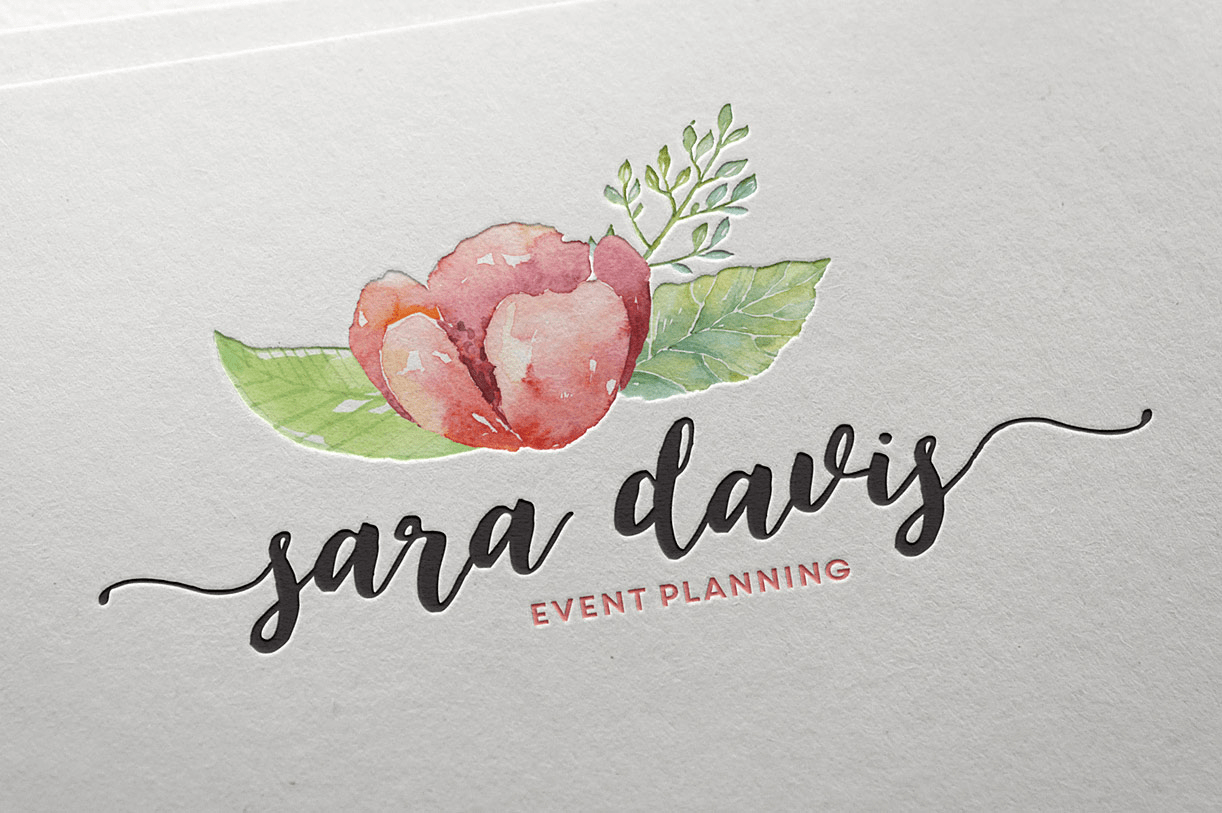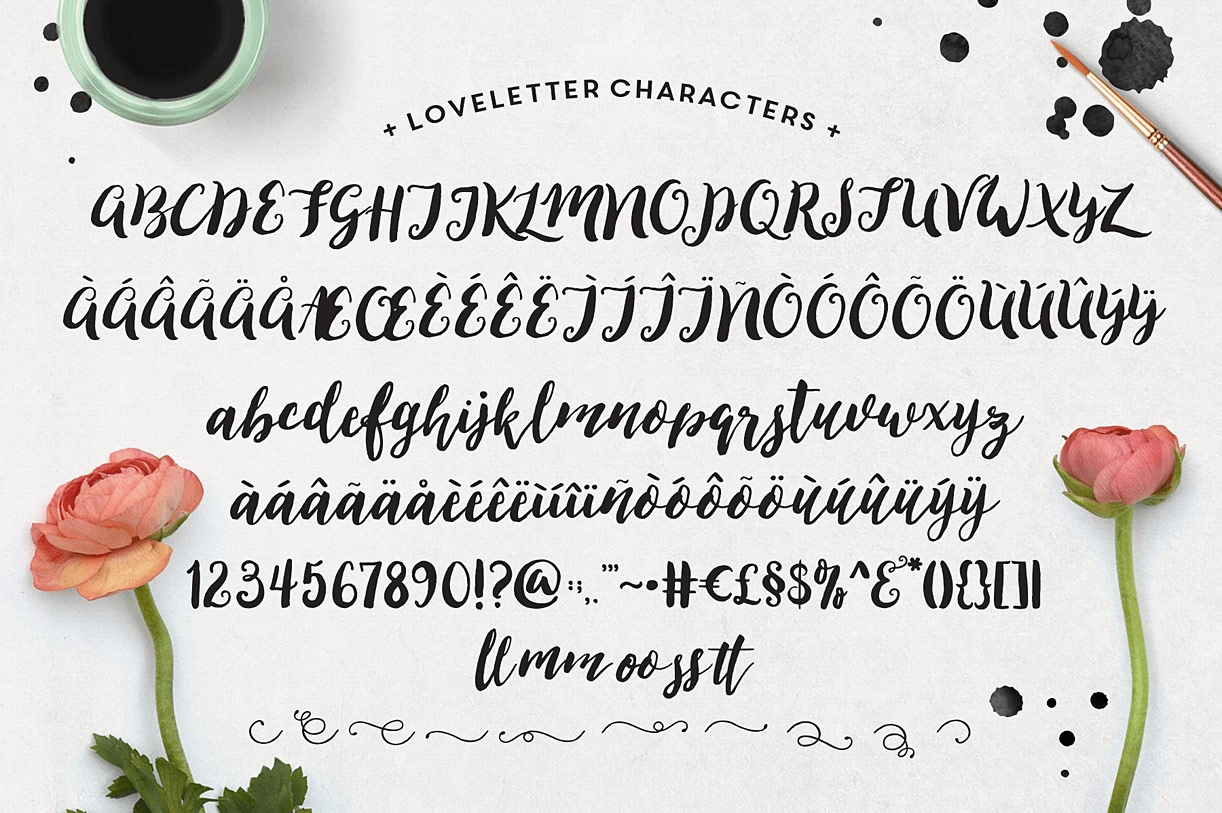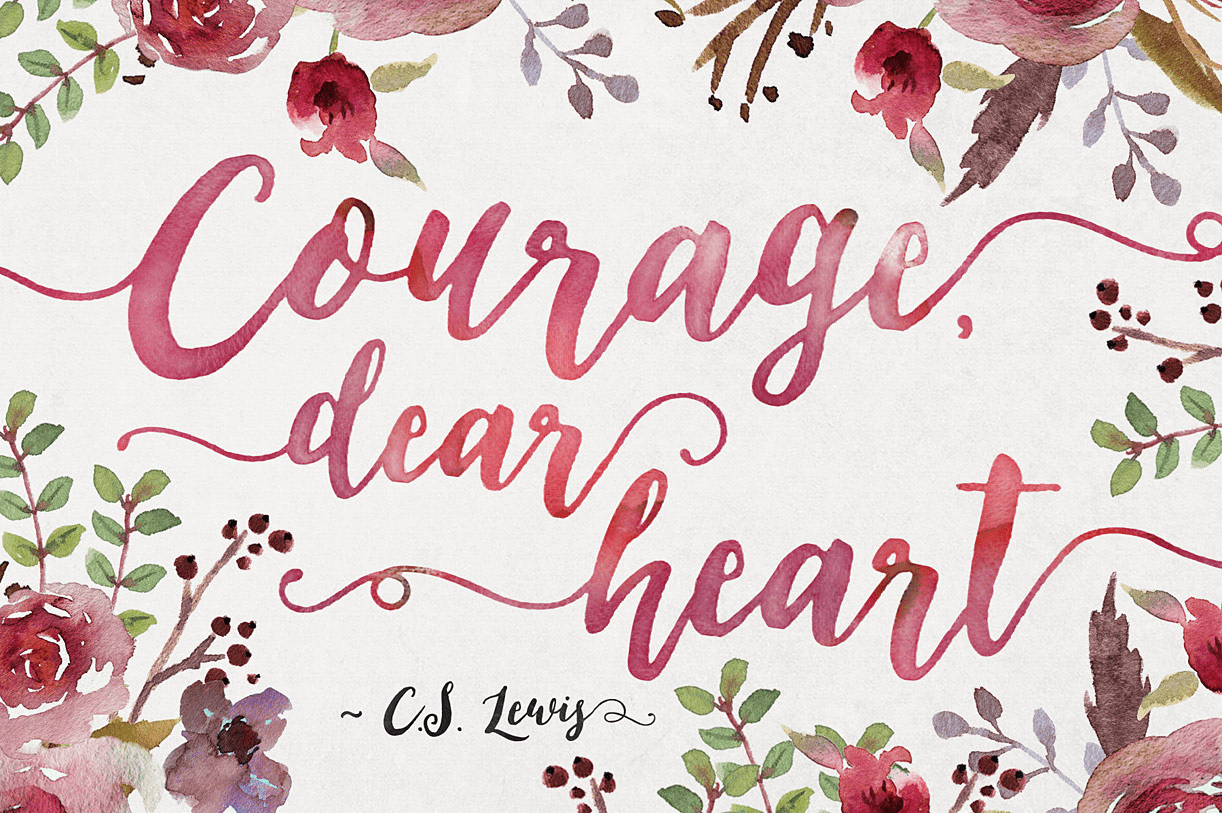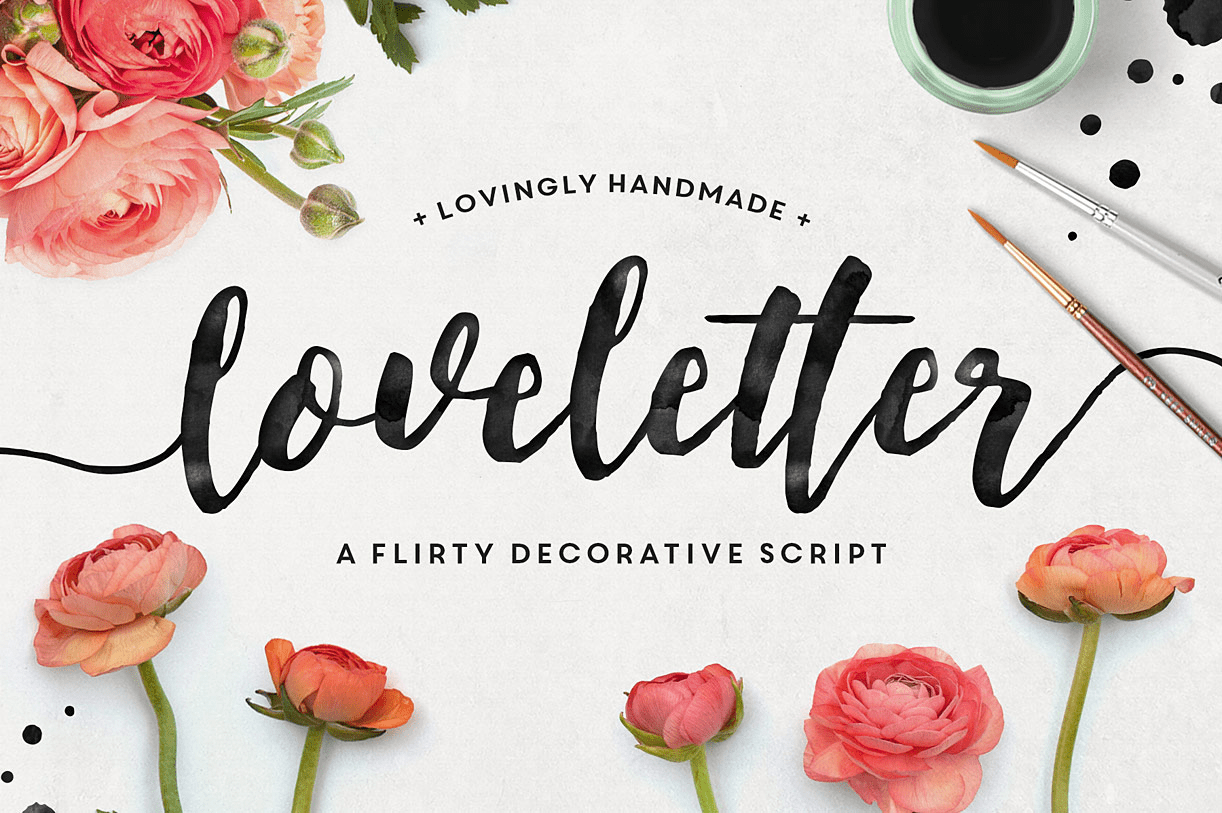
Loveletter Script
About Loveletter Script
Introducing Loveletter Script – an elegant, flirty, calligraphy-style script with decorative end characters and a dancing baseline! So pretty on branding materials, blog headers, business cards, quotes and more! Whatcha get: Loveletter Script (OTF File),…